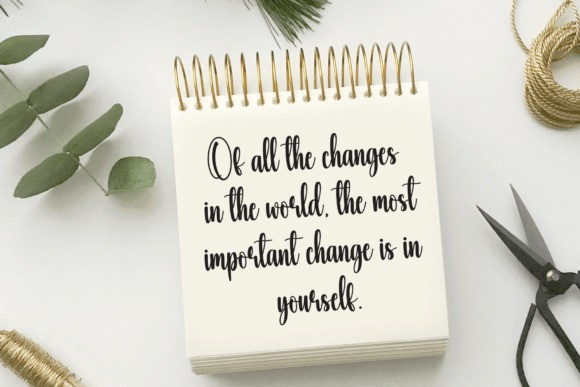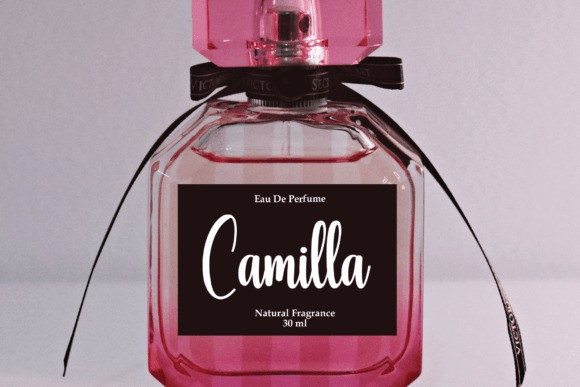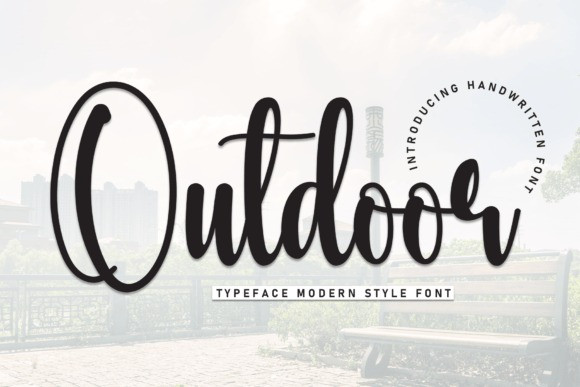
Outdoor Font
Outdoor Font is a charming handwritten font imbued with a sense of freshness and casual elegance. Its fluid strokes and organic lines evoke a laid-back vibe, making it perfect for various design projects. Whether used for branding, invitations, or social media graphics, Outdoor adds a touch of warmth and personality.